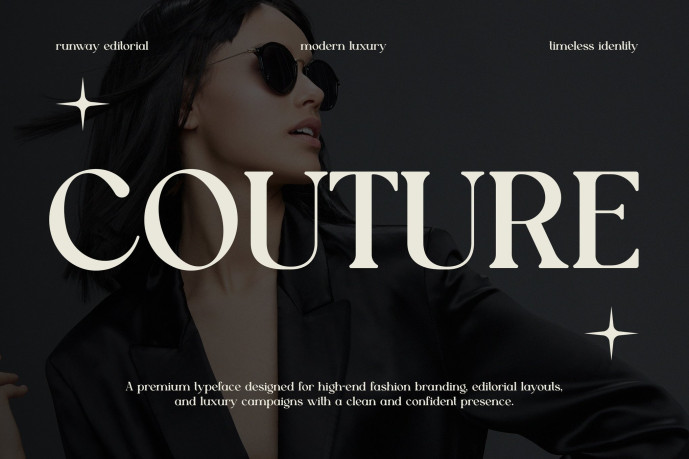
Couture Serif Font
Couture Serif Font is an elegant high-contrast serif designed for fashion editorial layouts, blending sharp terminals, refined proportions, and clean vertical stress to create a polished and expressive visual tone. Its modern yet timeless character fits seamlessly into magazine design, branding, and high-end packaging, while the structured letterforms deliver clarity and confidence. With its sleek contrast and graceful spacing, Couture brings a composed, editorial presence that feels both contemporary and enduring.
Created for designers working in branding, editorial, and visual storytelling, Couture elevates projects like fashion campaigns, posters, and digital layouts with a confident and stylish tone. Its structured elegance enhances headlines and logotypes, helping brands communicate identity with precision. Whether used for magazine covers, portfolio presentations, or app UI, Couture delivers a clean and impactful aesthetic that captures attention without overwhelming the design.